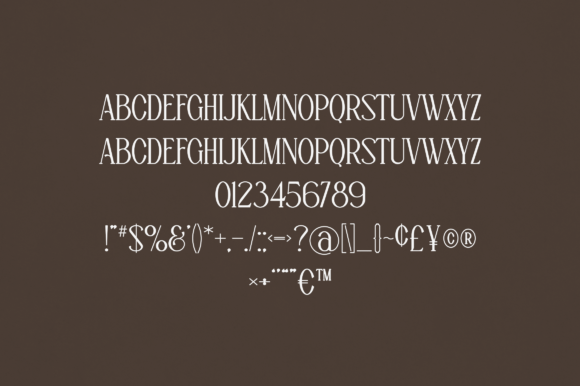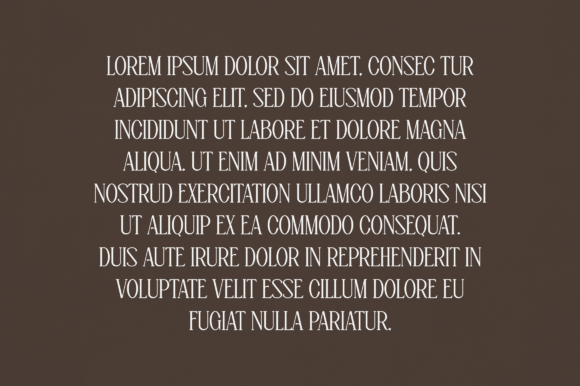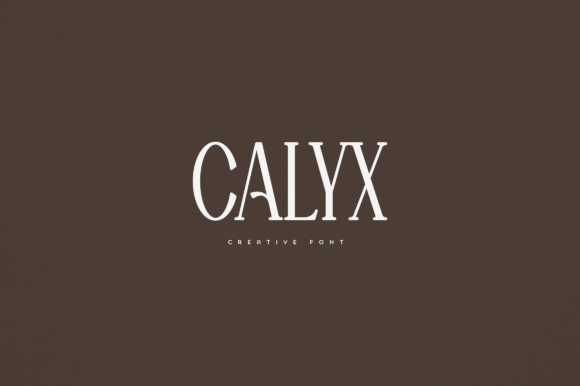
Introducing Calyx Font: Elevate Your Typography with Elegance and Versatility
In the world of design, typography plays a crucial role in conveying messages, expressing creativity, and capturing the essence of a brand. Among the myriad of fonts available, Calyx Font stands out as a beacon of elegance and versatility. This exquisite font is designed to transform your typography into something truly unique, making it perfect for a wide range of applications, from logos and branding to headlines and plain text.
The Charm of Calyx Font
Calyx Font is more than just a typeface; it’s an experience. Its elegant design ensures that every piece of text it represents exudes sophistication and style. Whether you’re working on a logo, a branding project, a magazine header, or simply looking to add a stylish text overlay to a background image, Calyx Font is the perfect choice. Its versatility means it can adapt to any design requirement, ensuring that your work stands out in a crowded digital landscape.
For designers and crafters, finding the right font can often be a daunting task. You need something that not only looks great but also complements your design and communicates your message effectively. Calyx Font checks all these boxes and more. Its unique yet versatile design makes it an ideal choice for various projects, including:
- Branding Projects: Establish your brand’s identity with a font that speaks elegance and sophistication.
- Home-ware Designs: Add a touch of class to your home-ware designs with a font that’s both stylish and readable.
- Product Packaging: Make your product stand out on the shelves with packaging that features Calyx Font.
- Magazine Headers: Create eye-catching headers that draw readers in and set the tone for your content.
Why Choose Calyx Font?
There are countless reasons why Calyx Font should be your go-to choice for your typography needs. Here are a few:
- Unique and Memorable: In a world filled with generic fonts, Calyx Font helps you create designs that are memorable and impactful.
- Elegant and Versatile: Its elegant design ensures it fits well in various contexts, from formal to casual settings.
- High Readability: Despite its stylistic features, Calyx Font maintains high readability, making it suitable for both headings and body text.
- Easy to Use: Calyx Font is easy to integrate into your projects, allowing you to focus on the creative aspect of your work.
Tips for Using Calyx Font
To get the most out of Calyx Font, consider the following tips:
- Experiment with Sizes: Play around with different sizes to see how Calyx Font looks in various contexts.
- Pair it Wisely: Although Calyx Font is stunning on its own, pairing it with complementary fonts can create interesting visual dynamics.
- Adjust Line Spacing: Ensure your text is easy to read by adjusting line spacing according to your design needs.
Calyx Font is a game-changer for anyone looking to elevate their typography. Its elegant and versatile design makes it suitable for a myriad of applications, ensuring that your work stands out. Whether you’re a designer, a crafter, or simply someone who appreciates beautiful typography, Calyx Font is an excellent addition to your toolkit. So, why settle for ordinary when you can create something truly unique with Calyx Font?
Embark on your journey to typographic excellence with Calyx Font. Let its elegance and versatility transform your designs and take your work to new heights.